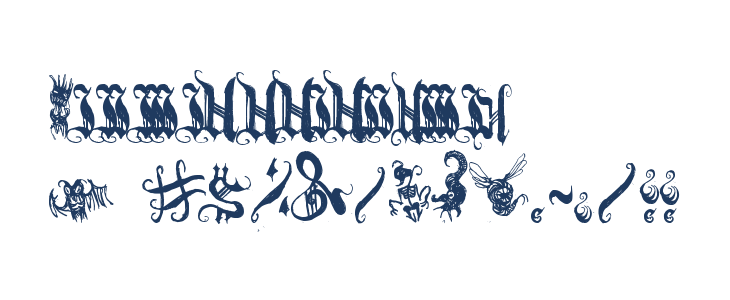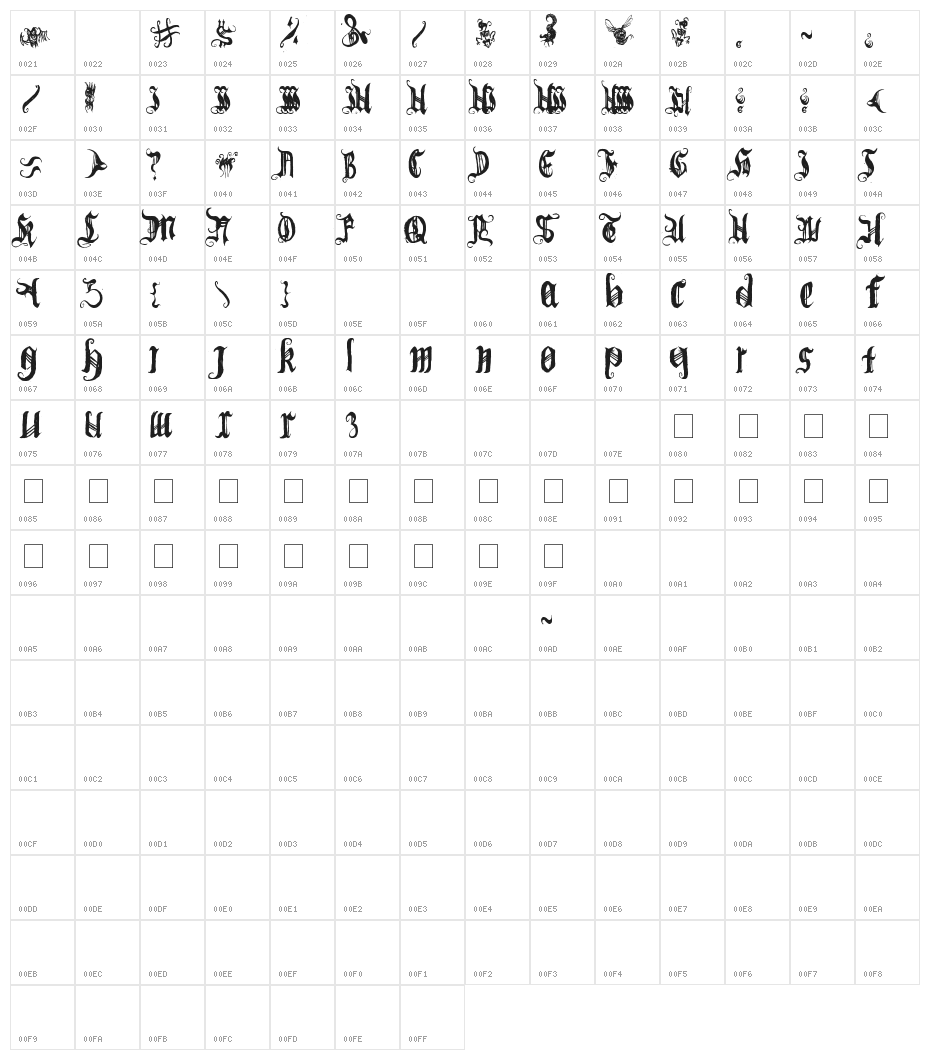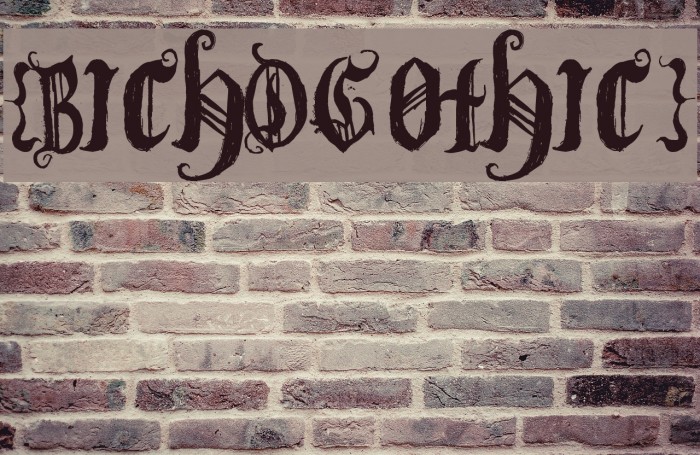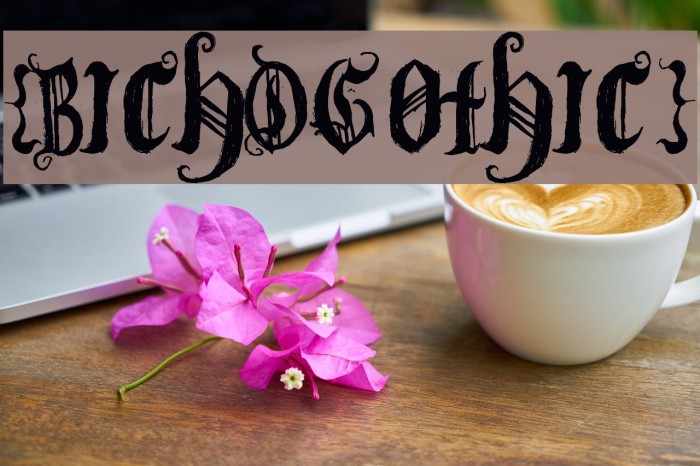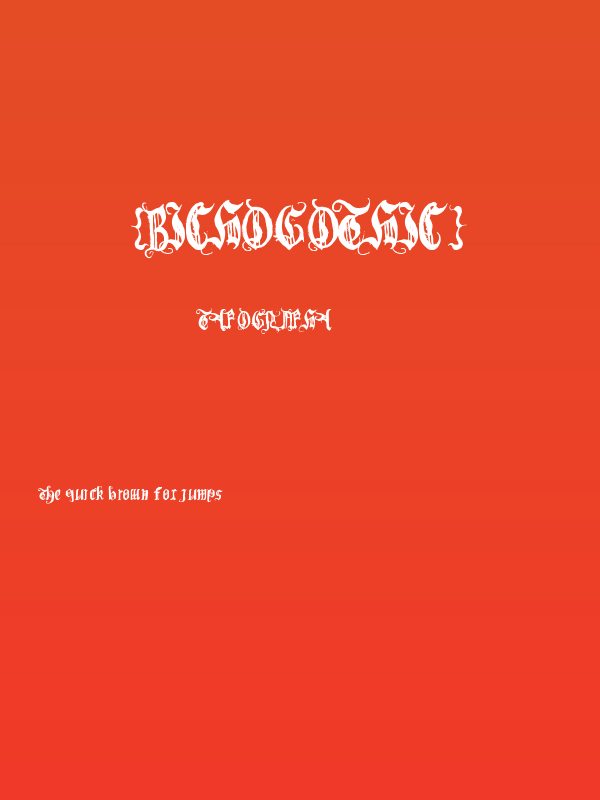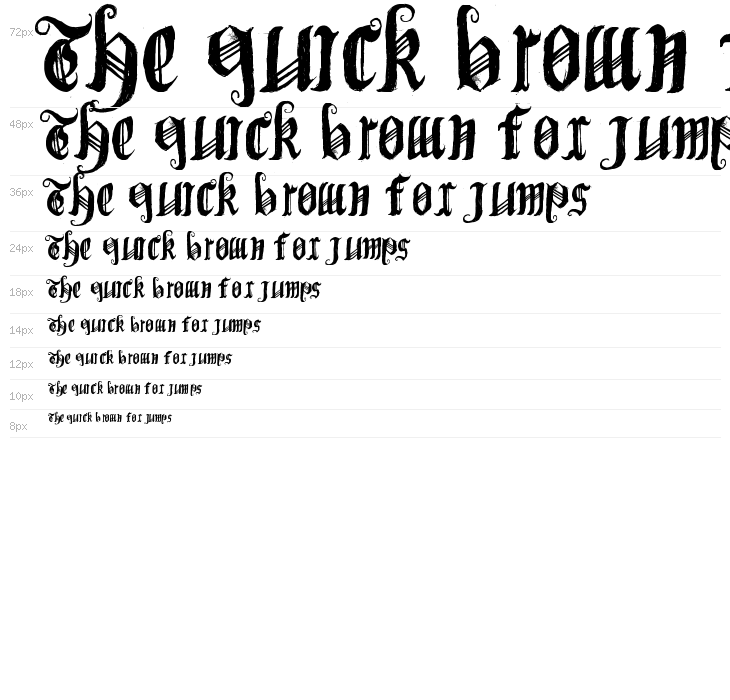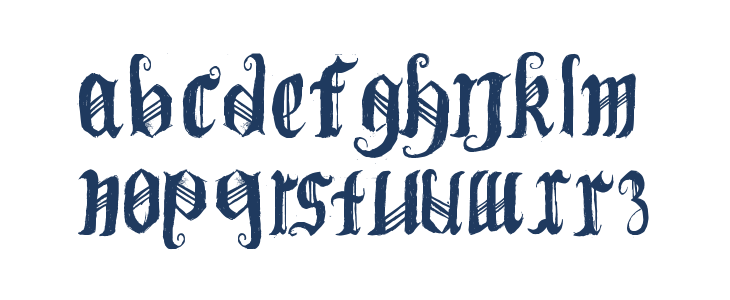
[BichOGothic] Font
[BichOGothic] Description
This font is a highly decorative and intricate Gothic style, characterized by its elaborate and ornate letterforms. Each character is adorned with flourishes and embellishments that give it a medieval and dramatic appearance. The strokes are bold and heavy, with sharp angles and pointed serifs that enhance its Gothic aesthetic. The uppercase letters are particularly elaborate, featuring additional swirls and loops that extend beyond the basic letter shapes. The lowercase letters maintain the same level of detail, ensuring consistency throughout the font. The numbers and special characters are equally ornate, making this font suitable for designs that require a historical or fantasy theme.
BICHOGOTHIC UPPERCASE
BICHOGOTHIC LOWERCASE
BICHOGOTHIC OTHER CHARS
| Proposed Projects | Ideal for fantasy-themed projects, historical event posters, book covers, and decorative invitations. |